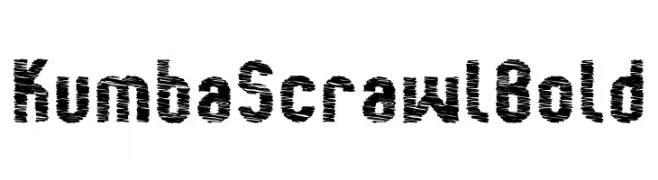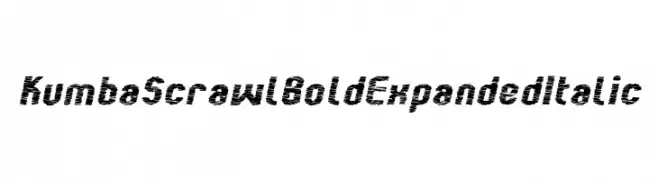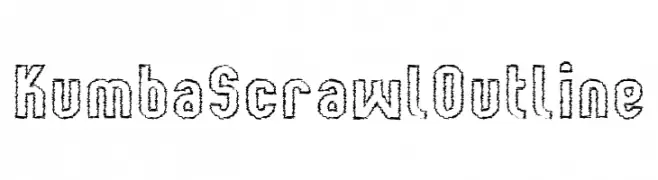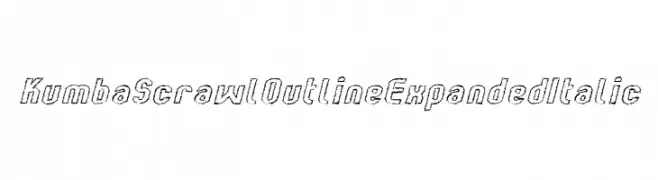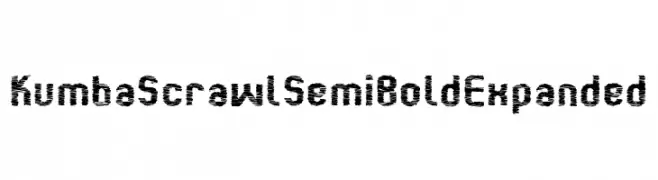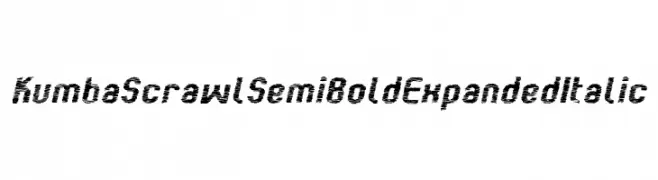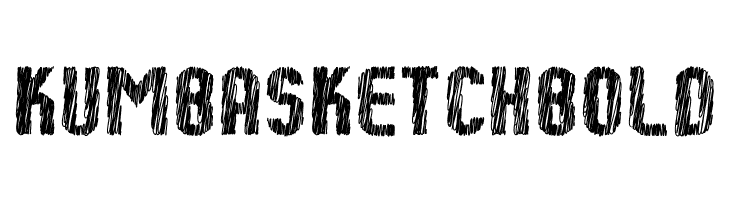
A bold, textured font with a hand-drawn, scrawled appearance.
A bold, expanded, and italicized scrawl-style font with a textured, artistic flair.
A playful, hand-drawn outline font with a textured, artistic style.
A playful, expanded outline font with a scrawled, italicized style.
A bold, hand-drawn font with a textured, scrawled appearance and expanded width.
A semi-bold, expanded, italic font with a scrawled, hand-drawn style.
A bold, sketch-style font with a hand-drawn, textured appearance.
A bold, italic, sketch-style font with a dynamic and artistic appearance.
A sketch-style italic font with a hand-drawn, artistic appearance.
A bold, sketch outline font with a playful, hand-drawn style.